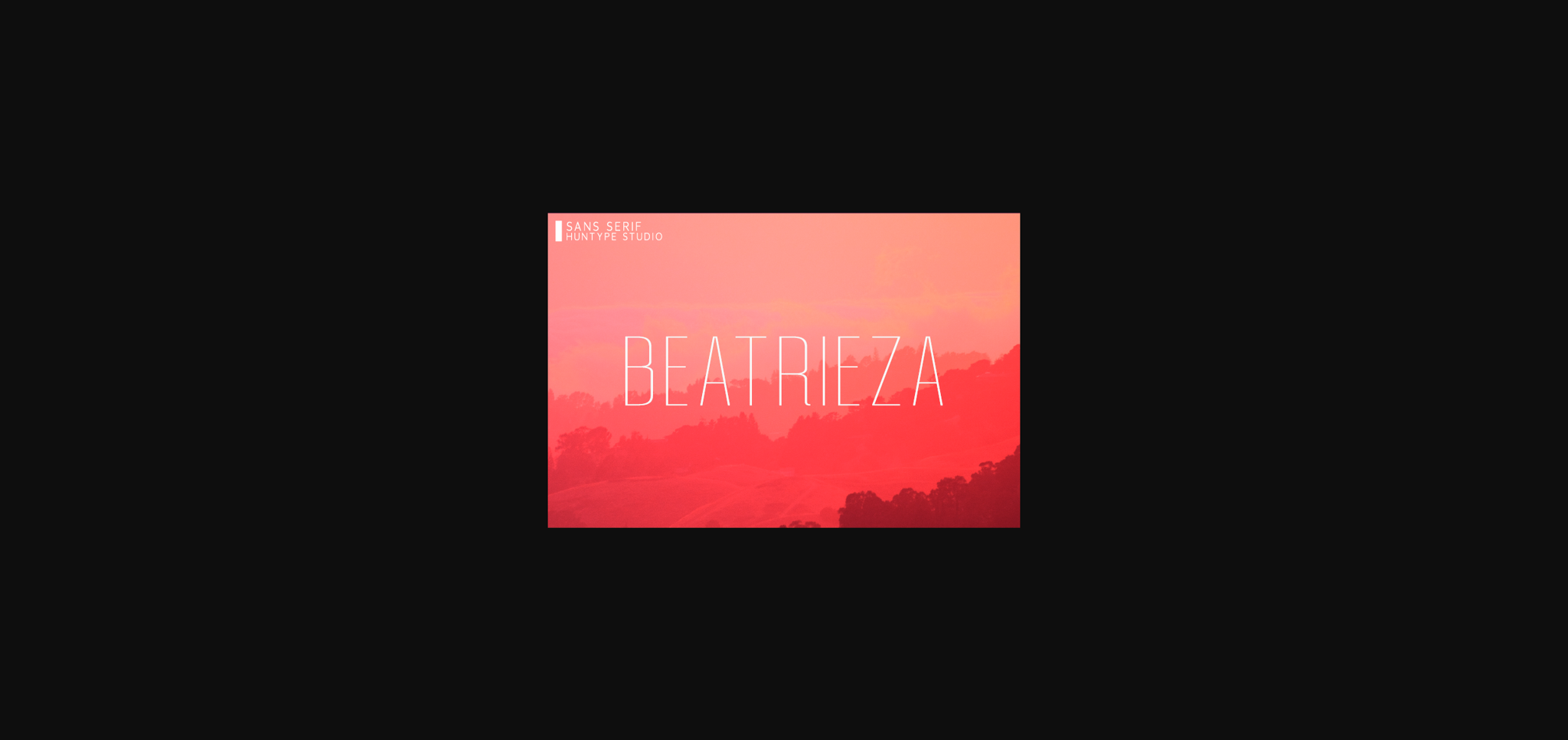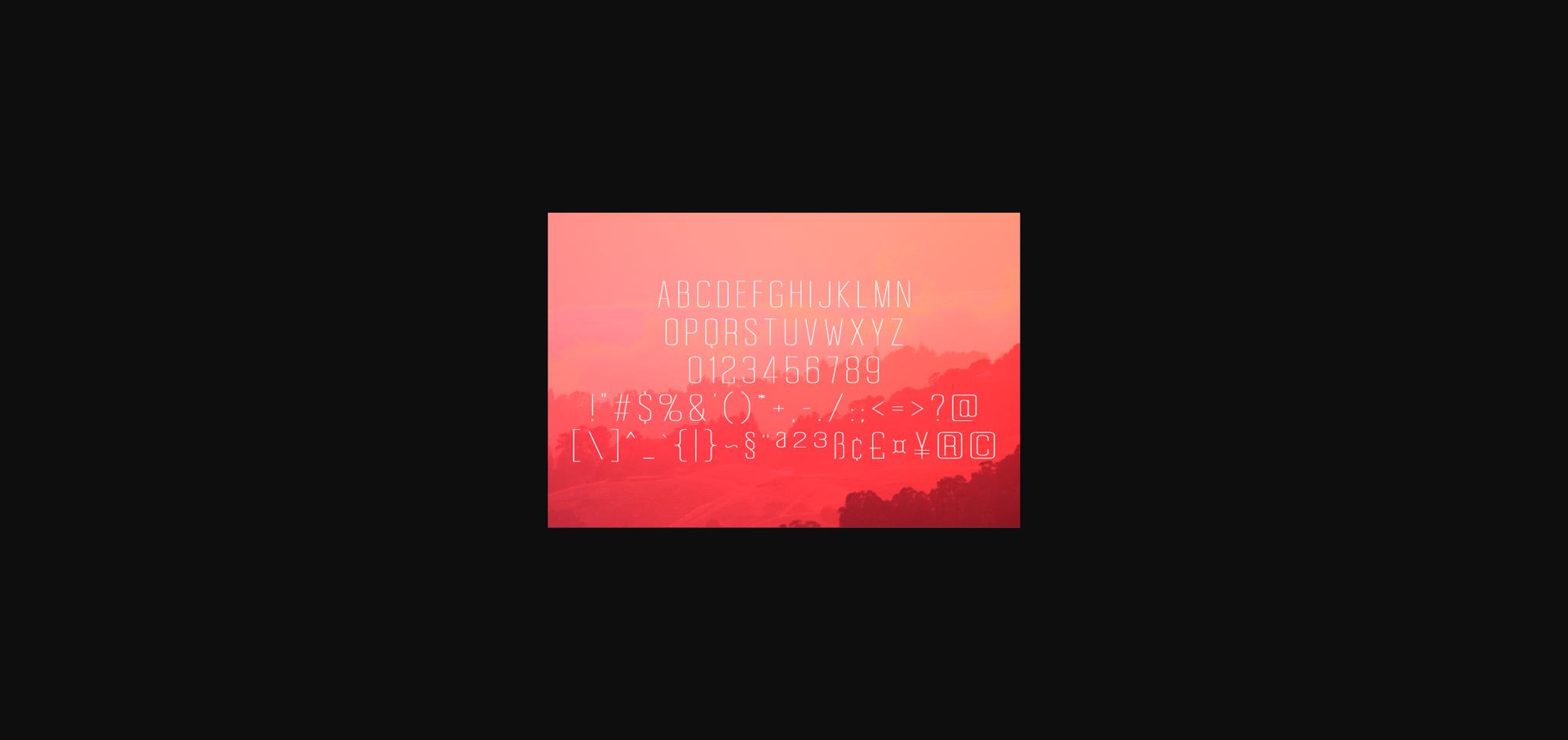
Beatrieza Font
About Beatrieza Font
Beatrieza is a delicate and thin lettered sans serif font. Suitable to a large set of designs due to its neat style, Beatrieza has the potential to become your favorite go-to font, no matter the occasion!